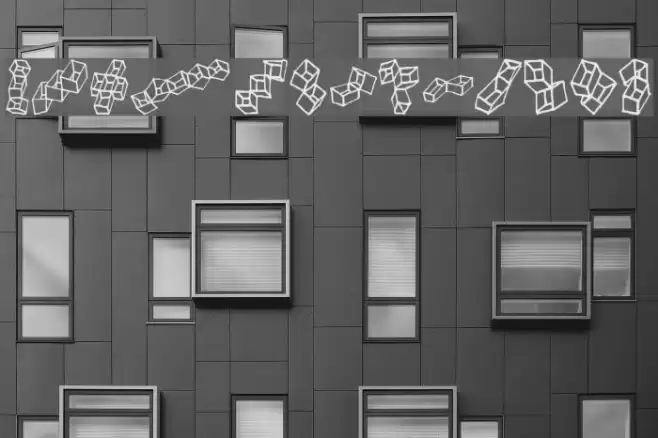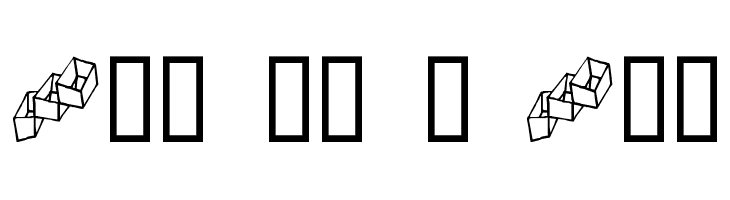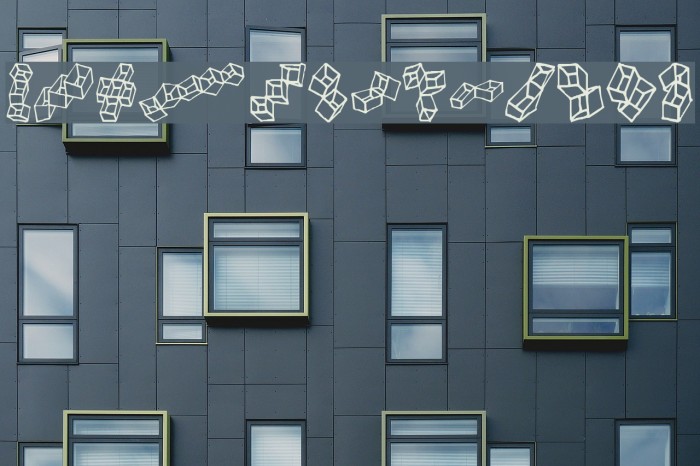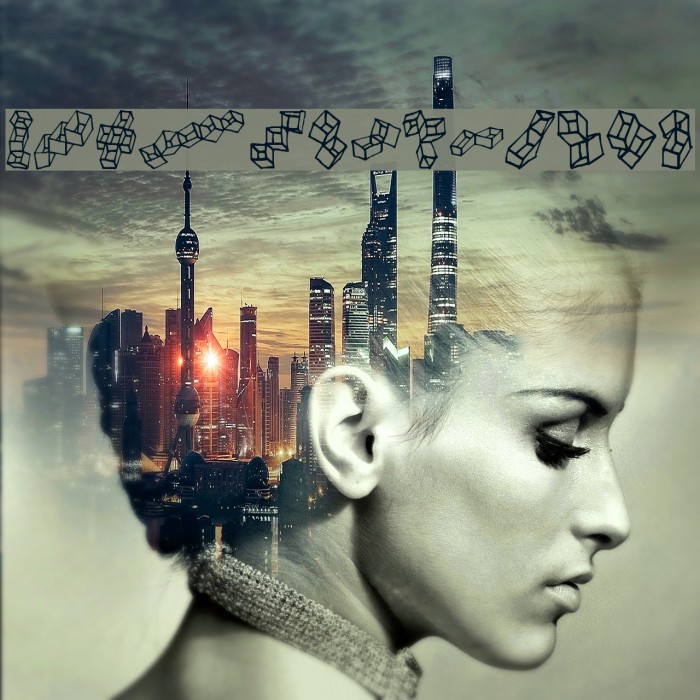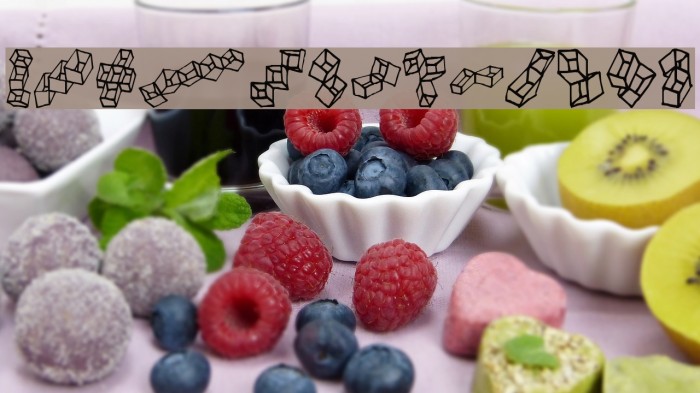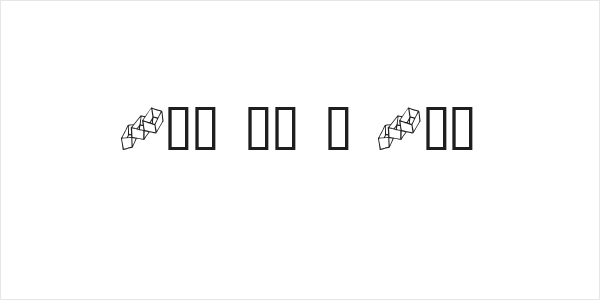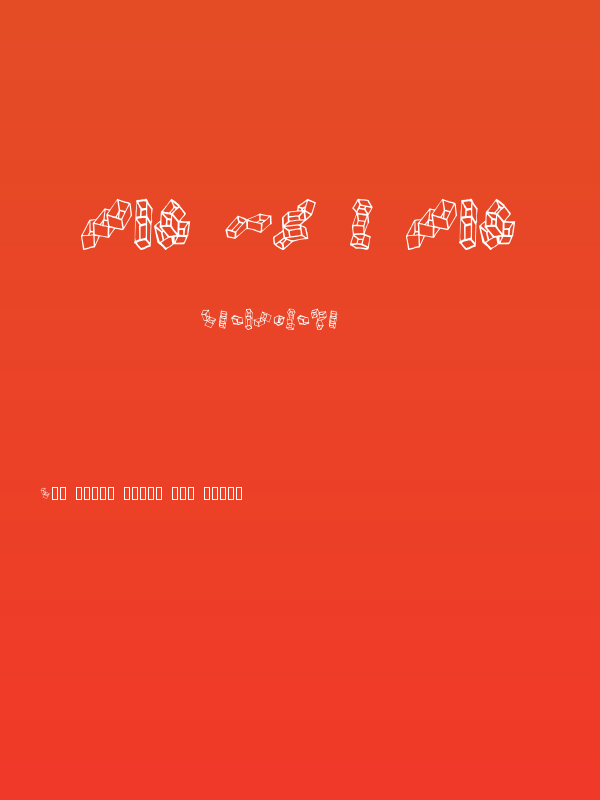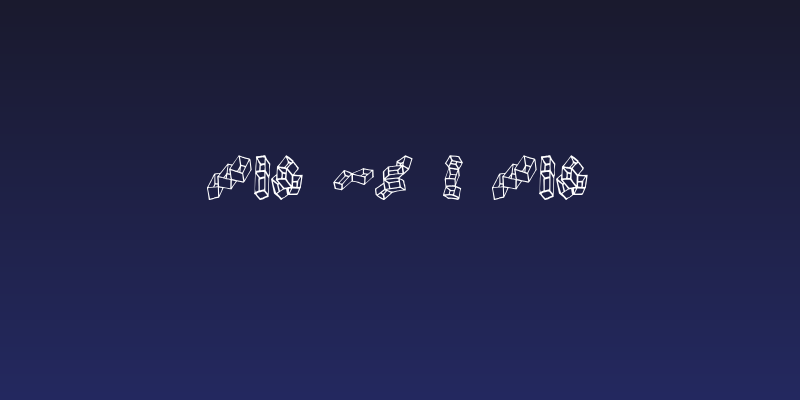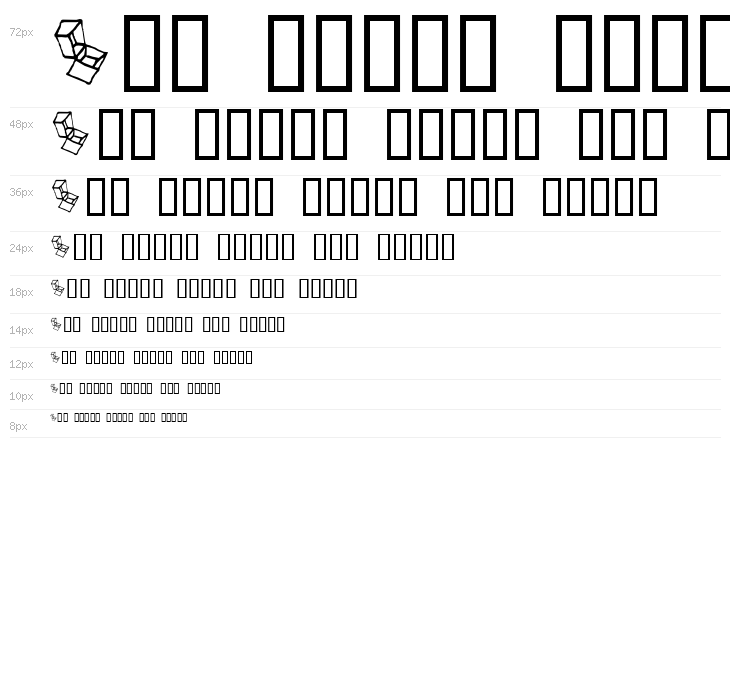
Box in a Box Font
Box in a Box Description
This font features a unique and playful design where each character is represented as a three-dimensional box. The letters and numbers are constructed with bold outlines, giving them a distinct and eye-catching appearance. The geometric style adds a modern and abstract touch, making it suitable for creative and unconventional projects. The characters are evenly spaced, and the overall look is consistent across the alphabet and numerals. This font is ideal for designs that require a bold statement and a touch of whimsy.
A playful 3D box-style font with bold outlines and geometric design from Dingbats fonts.